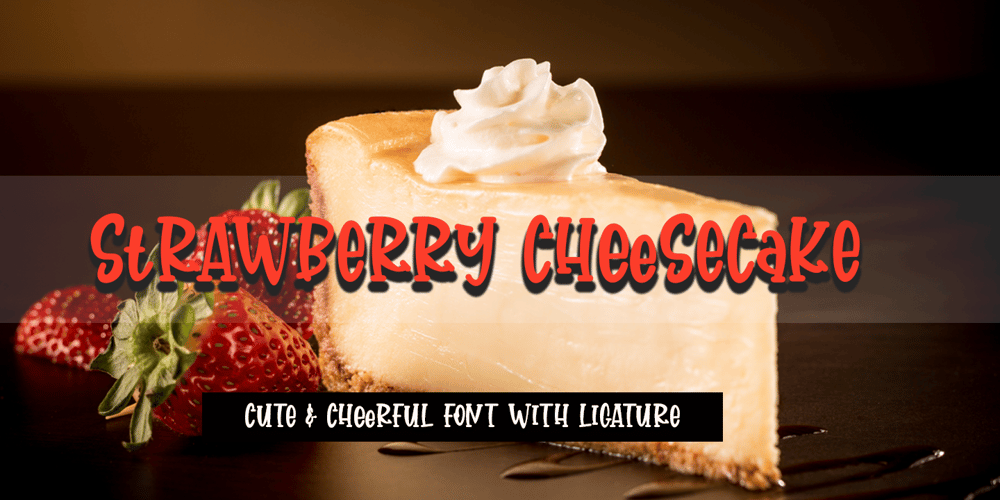
Strawberry Cheesecake
Strawberry Cheesecake font
Strawberry Cheesecake Font Family was designed by Arief Tri Sulistiyono and published by Supersemarletter. Strawberry Cheesecake contains 1 styles and family package options. Strawberry Cheesecake is a handwritten style in Uppercase and Lowercase feel nice balanced. Provide ligatures with special character. Honestly it works perfectly for headlines, logos, posters, packaging, T-shirts and much more.Font Features :• Ligatures• Numerals & Punctuation• Accented Characters• Multiple Languages SupportedRecommended to use in Adobe Illustrator or Adobe Photoshop with opentype feature.If you have questions, just send me a message and I’m glad to help.